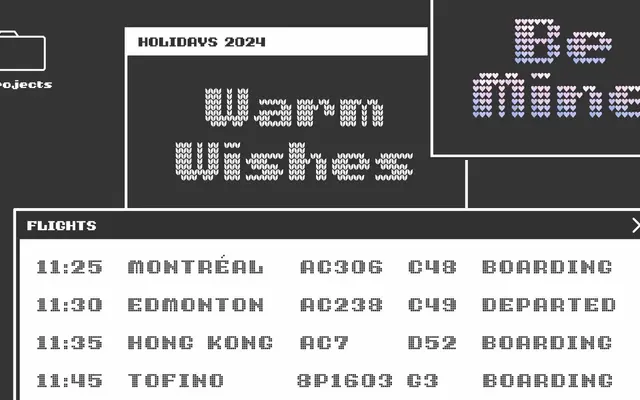
Kyoshi
A pixel typeface in eight structural variants, each available in black-and-white and full-colour gradient editions, drawing on 8-bit arcade lettering from the late 1980s and early 1990s.
Designed by Alanna Munro and released in 2023, Kyoshi offers sixteen styles in total: eight built from pixel structures ranging from squares and dots to hearts and knits, each paired with a COLRv0 colour version featuring a customisable gradient palette. The character set goes beyond basic Latin to include fractions, math symbols, arrows, emoticons and video game icons, with a discretionary ligature for the Konami Code sequence. The typeface was inspired by lettering from the 1989 game Sky Robo and the 1993 game Fire Barrel.
A display typeface constructed entirely from pixel-art grid structures across eight stylistic variants; its form language derives from 8-bit arcade and video game lettering rather than any conventional typographic tradition.